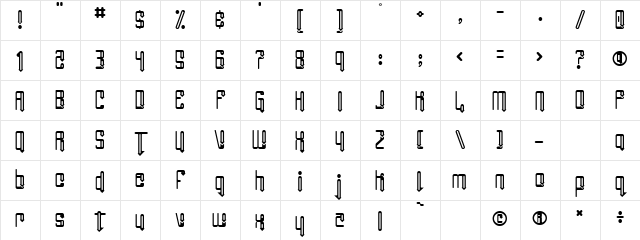
Angie Groovin Regular Free Font
Angie Groovin Regular
Design Context for Angie Groovin
Angie Groovin is a composed and adaptable typeface that performs quietly and consistently across a wide range of design contexts.